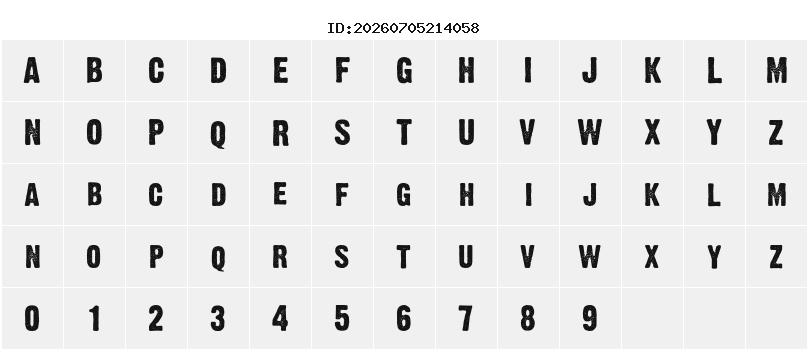
Dirty Headline Preview
• Font Name: Dirty Headline
• Full Font Name: Dirty Headline
• Designer: S. John Ross
• Description: A stressed "Swiss" headline font designed to emulate old posters and newspapers.
About Dirty Headline.ttf
Dirty Headline.ttf is a modern, elegant sans-serif font designed for ultimate readability and visual harmony. Perfect for branding, headlines, web design, and print materials.